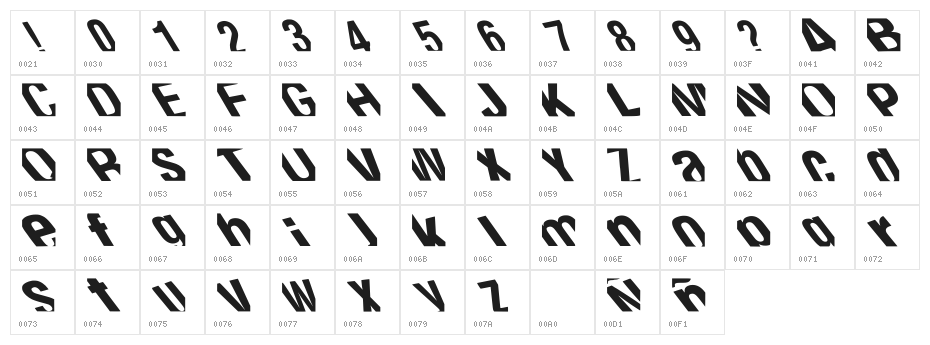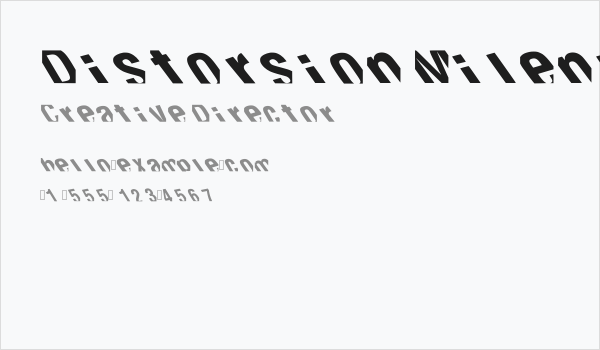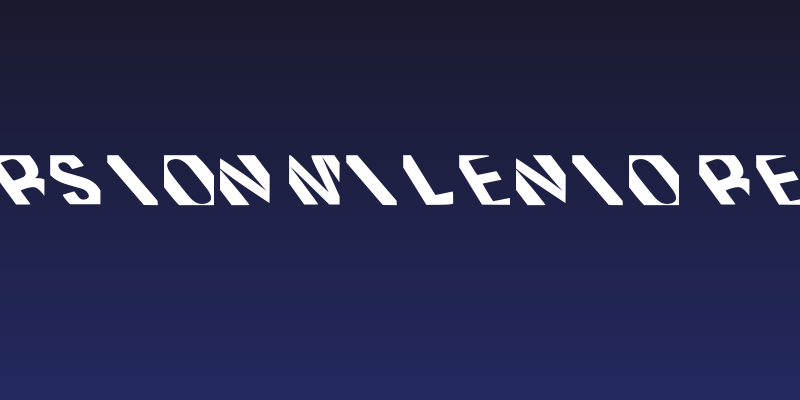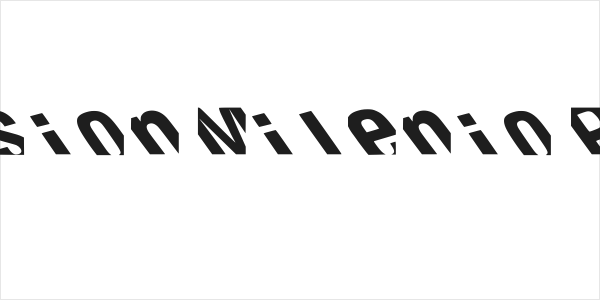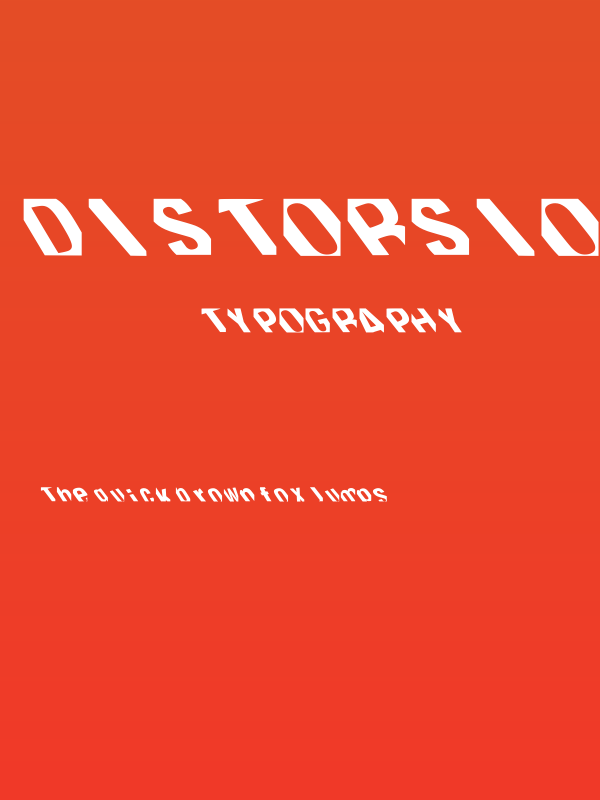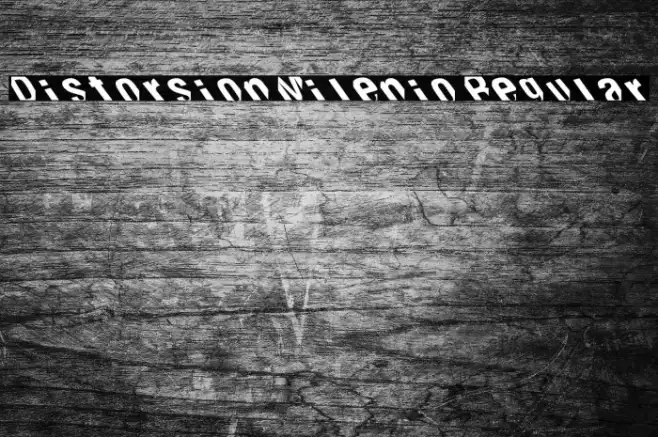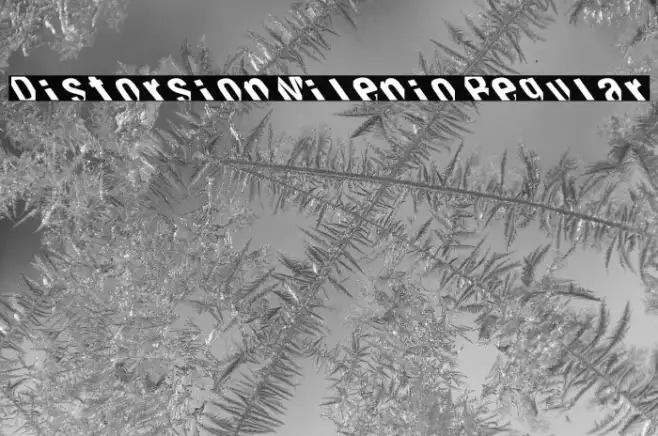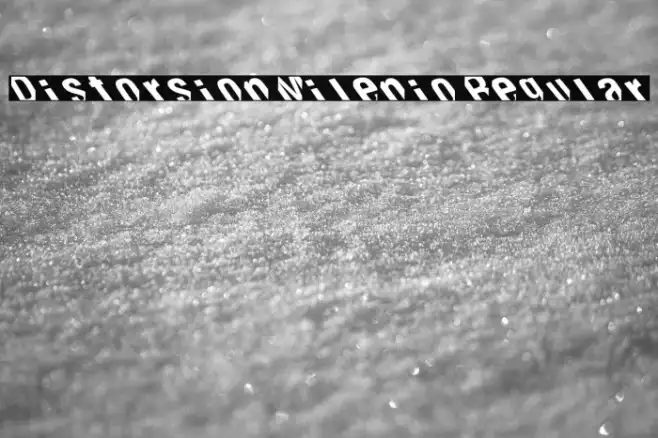
Distorsion Milenio Regular Font
Distorsion Milenio Regular Description
This font features a bold and dynamic style with a distinct three-dimensional effect. The characters appear to be tilted or distorted, giving a sense of movement and energy. The uppercase and lowercase letters maintain a consistent angular design, while the numbers and special characters follow the same aesthetic. The bold strokes and sharp angles make it stand out, ideal for creating attention-grabbing headlines or logos. Its unique style is both modern and edgy, suitable for projects that require a strong visual impact.
| Proposed Projects | Ideal for music album covers, modern art posters, edgy branding, and dynamic web design. |